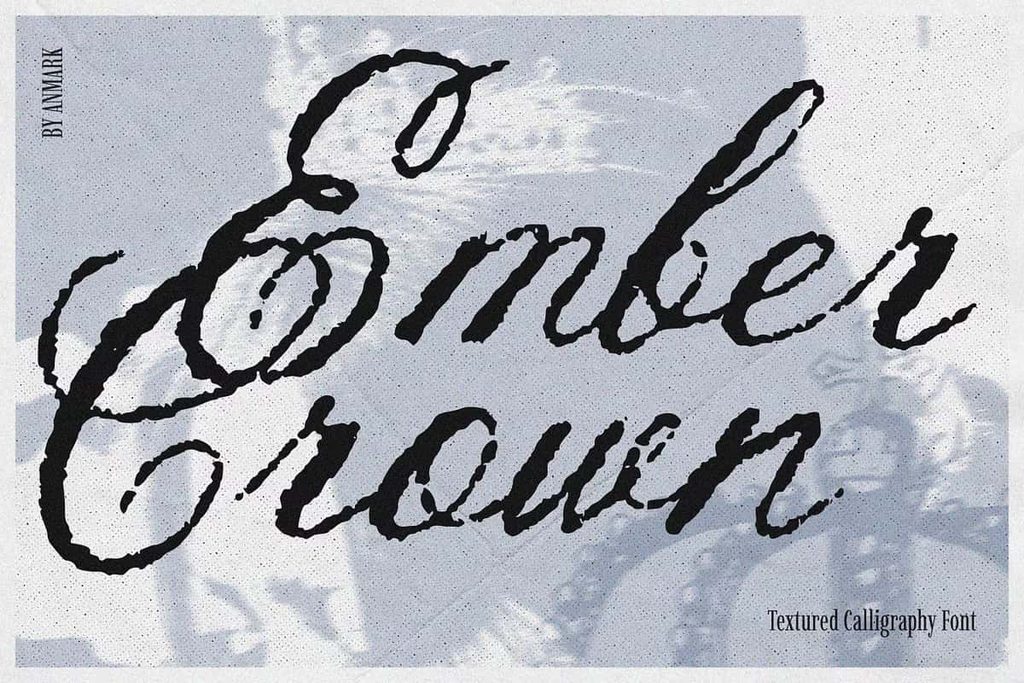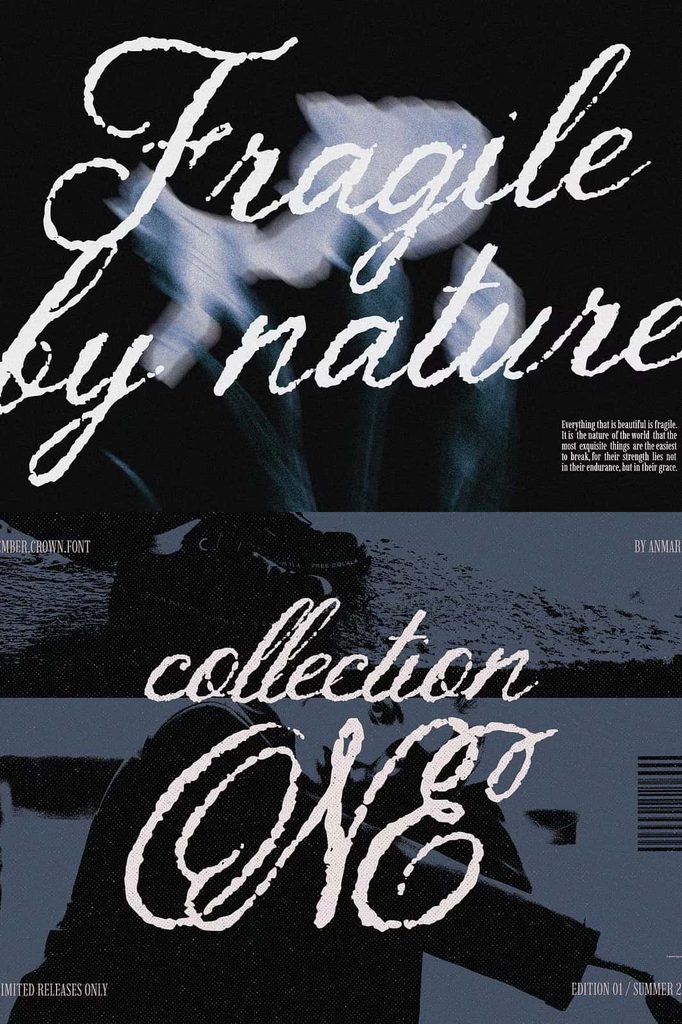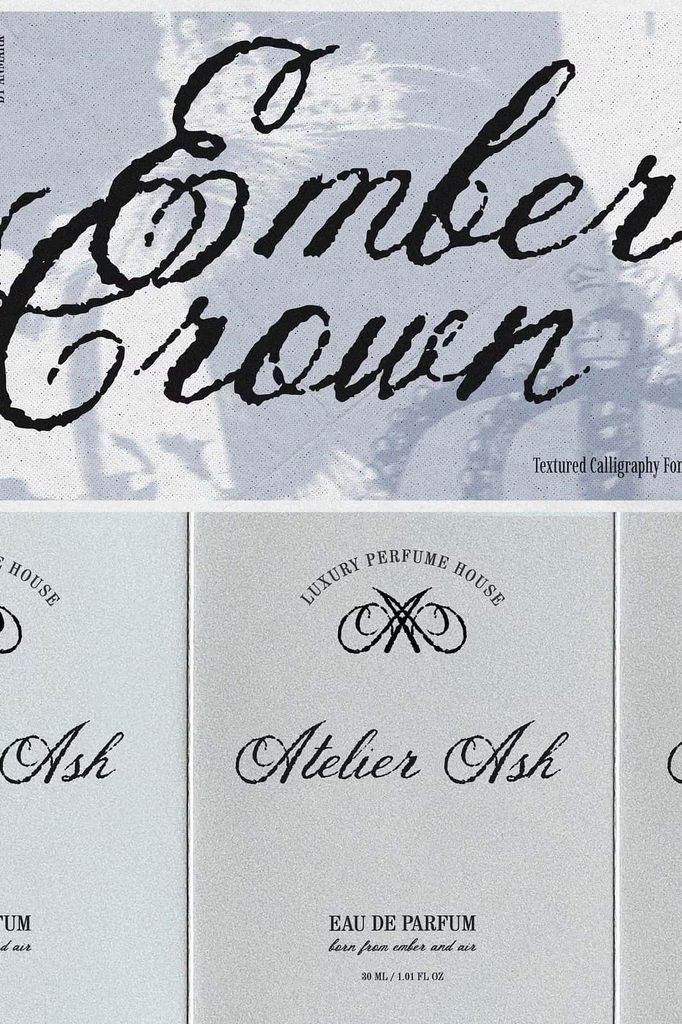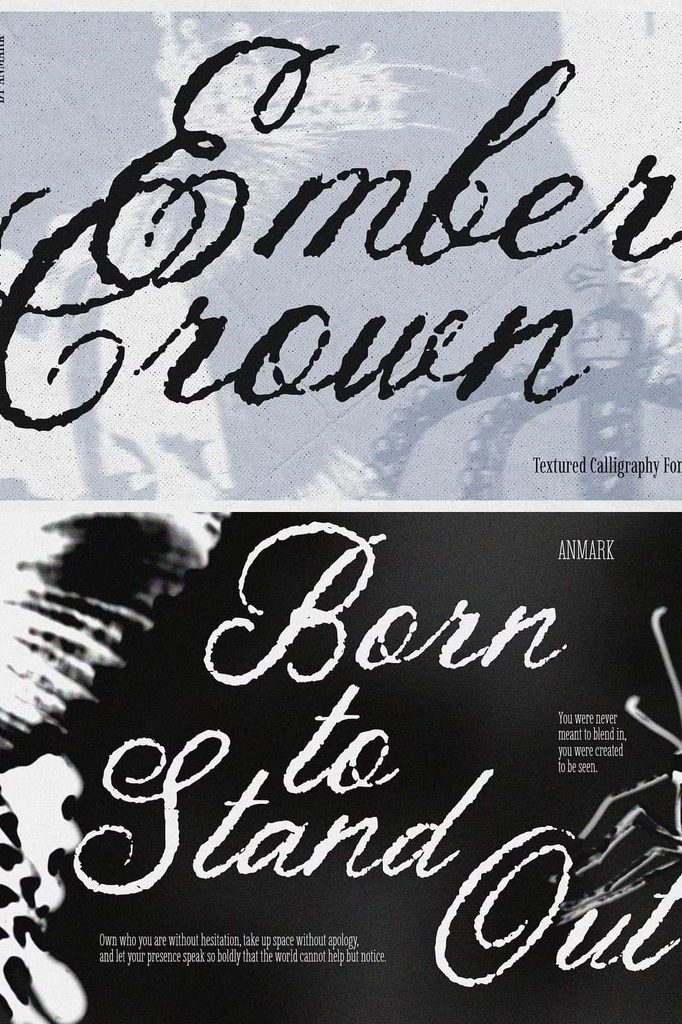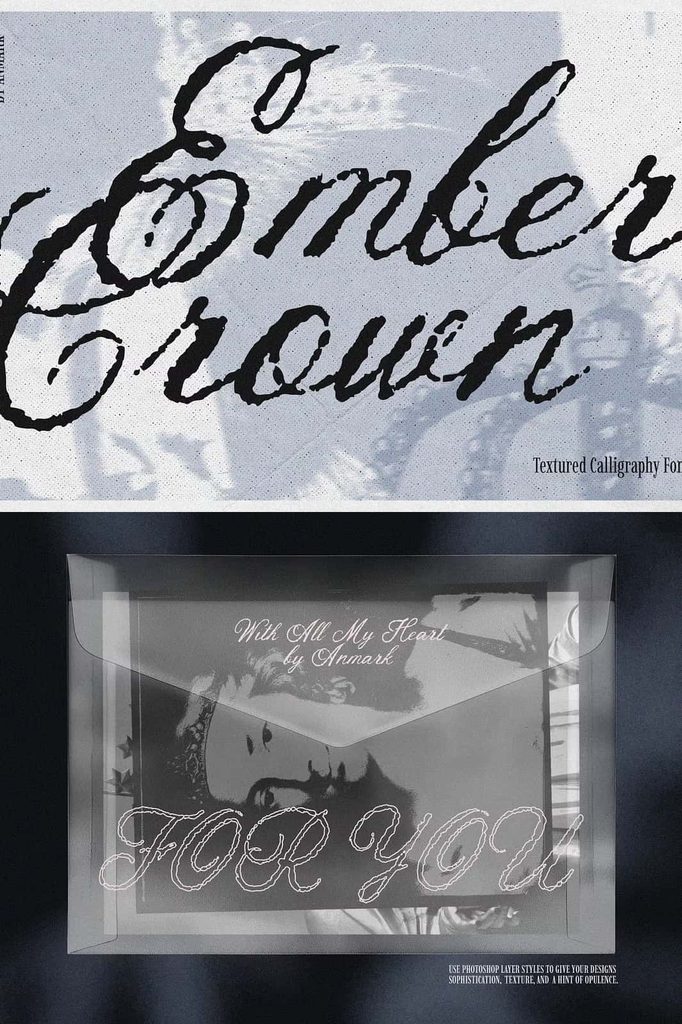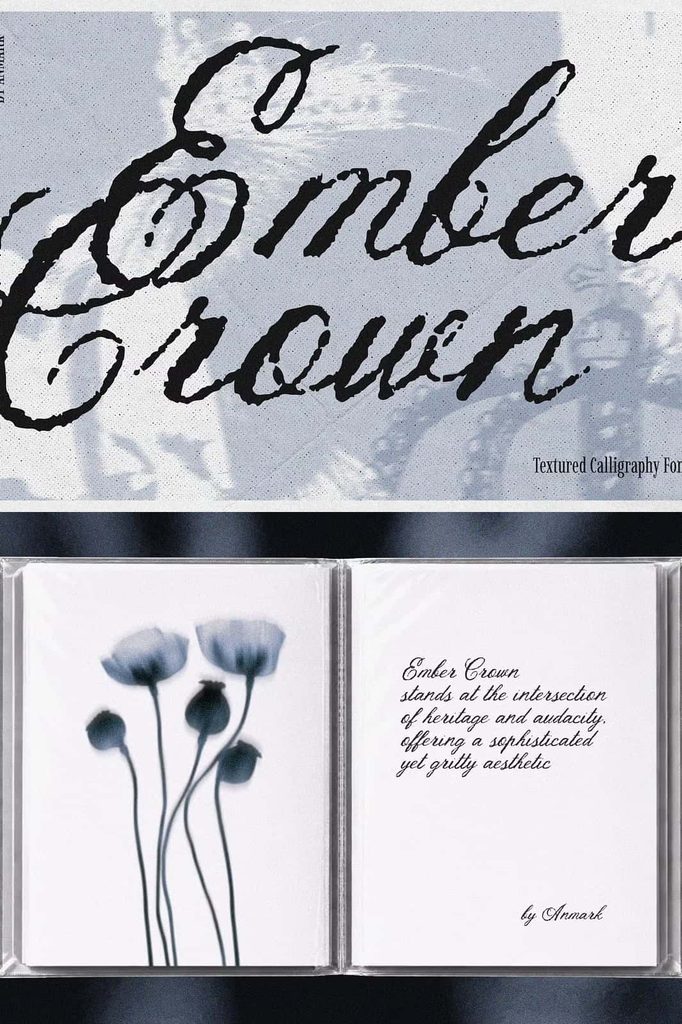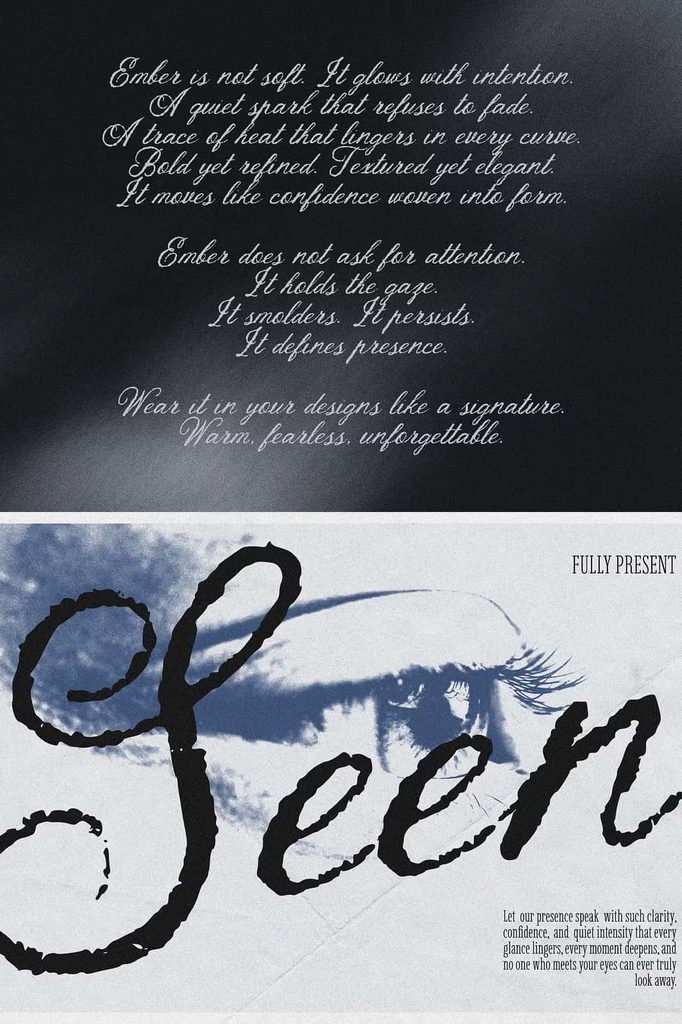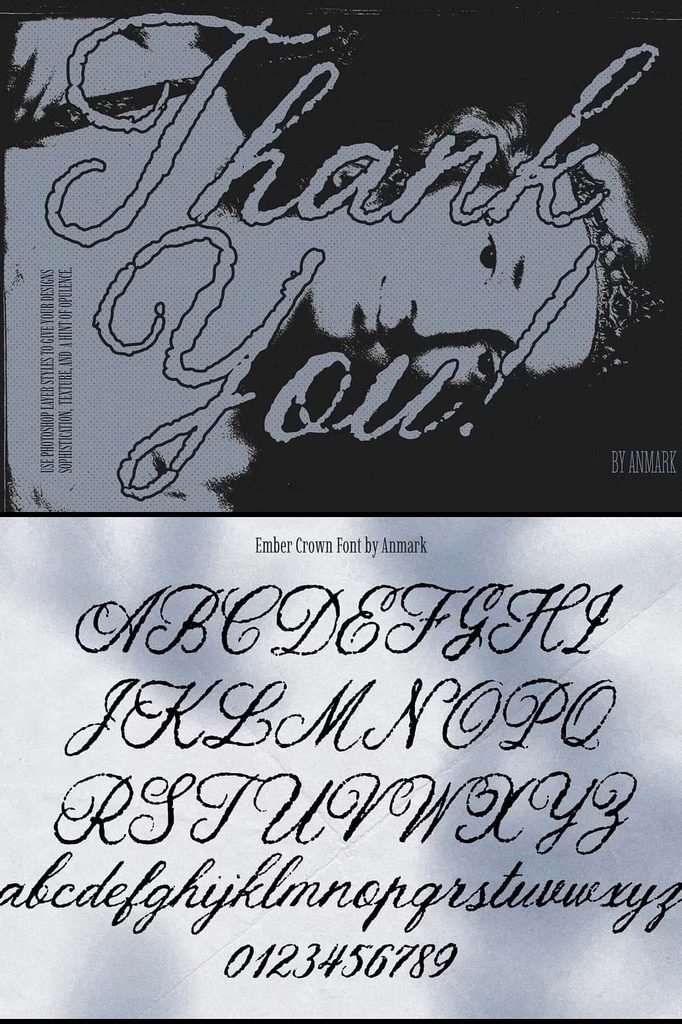
Ember Crown Font – A Bold and Textured Calligraphy Script
Ember Crown Font captures the raw beauty and emotional energy of expressive calligraphy. Designed with bold strokes, rough textures, and an unmistakably handcrafted appearance, this script font transforms ordinary lettering into powerful visual artwork. Every character feels alive, creating the impression that each word emerged naturally from an artist’s hand rather than from a perfectly controlled digital process.
The strength of Ember Crown comes from its imperfections. Instead of smoothing away every irregularity, the design embraces rough edges, textured surfaces, and spontaneous movement. These details create a rich tactile quality that gives your typography depth and personality. The result feels artistic, confident, and unapologetically expressive.
Ember Crown works beautifully when a project needs typography with presence. Use it for branding, logos, posters, apparel, album artwork, packaging, editorial headlines, social media graphics, and other creative applications where ordinary lettering simply does not provide enough character. Its combination of elegance and untamed energy allows you to create designs that feel both sophisticated and rebellious.
Expressive Calligraphy with Raw Energy
Ember Crown takes inspiration from expressive calligraphy, where artists rely on movement, pressure, rhythm, and instinct to create distinctive lettering. The font translates that artistic approach into a bold digital typeface while preserving the spontaneous quality that makes hand-crafted calligraphy so compelling.
Each stroke contributes to the personality of the typeface. Thick and energetic forms create visual weight, while rough textures introduce an authentic handmade quality. These characteristics make Ember Crown particularly effective for display typography, where the lettering itself becomes an important part of the artwork.
Rather than simply presenting information, Ember Crown helps communicate emotion. A single word can feel passionate, dramatic, rebellious, luxurious, or artistic depending on the surrounding design. This flexibility gives creative professionals plenty of room to experiment.
A Rich and Tactile Textured Style
The textured finish gives Ember Crown its distinctive visual character. Rough surfaces and imperfect edges create the appearance of physical ink, paint, or brush marks. This tactile quality can make digital typography feel much more connected to traditional artistic techniques.
Use the texture as a central visual feature instead of hiding it. Display the font at larger sizes so the irregular details can become part of the composition. On posters, packaging, album covers, and apparel, the texture can reinforce a handmade or artistic concept without requiring additional decorative effects.
You can also combine Ember Crown with distressed backgrounds, paper textures, photography, illustrations, or subtle grain to create a cohesive visual atmosphere. Alternatively, place it against a clean background and allow the lettering alone to provide the visual impact.
Elegance Meets Untamed Character
Ember Crown creates an intriguing balance between elegance and roughness. Its calligraphic foundation introduces graceful movement, while its textured construction adds strength and attitude. This contrast allows the font to move beyond traditional ideas of formal calligraphy.
Use Ember Crown when you want refined lettering with a more rebellious personality. It can add sophistication to fashion branding while still feeling contemporary. It can bring artistic energy to music artwork and create an authentic handcrafted impression on packaging.
This combination makes the font especially valuable for projects that need to communicate individuality. Ember Crown does not attempt to look perfectly polished. Instead, it celebrates character, emotion, and the visual energy of imperfect craftsmanship.
Perfect for Bold Logo Design
Ember Crown Font can create memorable logos and wordmarks with a strong artistic identity. Its bold script immediately attracts attention, making it an excellent option for brands that want to establish a distinctive personality.
Use the font for fashion labels, creative studios, music brands, lifestyle businesses, beauty products, handcrafted goods, and independent brands. Its expressive appearance can help a brand communicate confidence and creativity while maintaining a sophisticated calligraphic foundation.
For a balanced logo system, pair Ember Crown with a simple sans-serif for supporting information. Let the script establish the personality while the secondary typeface communicates practical details. This approach keeps the identity expressive without compromising clarity.
Ember Crown for Posters and Advertising
Posters and advertising materials give Ember Crown plenty of space to demonstrate its visual strength. Use it for campaign headlines, event names, promotional phrases, product announcements, and short statements that need to command attention.
The bold strokes can establish an immediate focal point, while the textured finish adds visual depth. Experiment with oversized lettering, overlapping elements, strong cropping, and dramatic positioning to create dynamic compositions.
Ember Crown also works effectively with photography. Place the lettering over an image to create a striking title, or use it as a standalone graphic element against a simple background.
Stand Out with Apparel and Merchandise
Bring Ember Crown into apparel and merchandise designs to create expressive graphics with a handcrafted edge. Apply it to T-shirts, hoodies, jackets, hats, tote bags, posters, stickers, and other promotional products.
Short phrases, brand names, slogans, and inspirational statements can all benefit from its bold visual presence. Combine the typography with distressed textures or vintage-inspired graphics to reinforce the rugged aesthetic, or keep the composition minimal for a more contemporary fashion look.
Bring Personality to Album Artwork
Ember Crown works naturally with music-related design. Its expressive strokes and emotional appearance can help establish the atmosphere of an album, single, mixtape, or promotional campaign.
Use the font for artist names, album titles, track artwork, concert posters, and merchandise. Its dramatic personality pairs particularly well with photography, abstract artwork, dark textures, vintage imagery, and experimental compositions.
Creative Uses for Ember Crown Font
Branding and Logos
Create distinctive wordmarks and visual identities with a script that communicates confidence, creativity, and handcrafted character.
Packaging Design
Use Ember Crown on labels, boxes, bottles, bags, and product packaging when you want to create an artisanal or premium appearance.
Fashion Graphics
Apply its bold lettering to apparel, accessories, promotional campaigns, and fashion branding for an expressive visual statement.
Posters and Signage
Build powerful headlines for posters, events, campaigns, exhibitions, and promotional materials using its strong calligraphic presence.
Social Media Graphics
Create attention-grabbing quotes, announcements, promotional artwork, and branded content that stands out in fast-moving digital feeds.
Editorial Headlines
Use Ember Crown selectively for magazine titles, feature headlines, book covers, and other editorial projects that benefit from expressive typography.
How to Get the Most from Ember Crown
To maximize the visual impact of Ember Crown, use it primarily for display text rather than long paragraphs. Its bold and textured construction performs best when viewers can appreciate the individual strokes and handcrafted details.
Experiment with scale to create different effects. Large lettering emphasizes the rough texture and expressive movement, while smaller applications can create a more subtle handwritten accent. Adjust spacing carefully to give each character enough room to contribute to the overall composition.
You can also create contrast by pairing Ember Crown with clean typography. A minimalist sans-serif can provide excellent supporting information while allowing the script to dominate the visual hierarchy. This combination creates a professional structure without reducing the expressive personality of the main lettering.
Why Choose Ember Crown Font?
Ember Crown stands apart because it treats imperfection as an important design feature. Its rough texture, expressive strokes, and handcrafted construction create a typeface with genuine visual attitude. Instead of producing perfectly uniform lettering, it captures the energy of human mark-making.
The font also offers considerable creative flexibility. Use it for sophisticated branding, rebellious apparel, artistic posters, dramatic music artwork, premium packaging, or handcrafted product identities. Its personality can adapt to many visual directions while maintaining its recognizable character.
Most importantly, Ember Crown gives typography a sense of emotion. Every stroke contributes to a visual story, allowing words to feel more expressive and memorable.
Create Typography with Presence
Ember Crown Font brings together expressive calligraphy, bold lettering, rough texture, and handcrafted energy. Its imperfect appearance creates a powerful alternative to polished and predictable script fonts, giving designers a way to introduce authenticity and attitude into their work.
Use Ember Crown to create striking logos, memorable packaging, expressive apparel, dramatic posters, distinctive album covers, editorial headlines, and engaging digital graphics. Let its tactile texture add depth, while its energetic strokes establish a strong visual presence.
Choose Ember Crown when your design needs typography that feels alive. Its combination of elegance and raw character allows you to create work that looks artistic, emotional, handcrafted, and confidently unique.